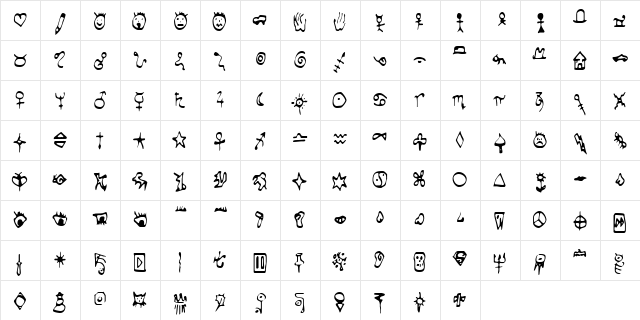
Scorpio Regular
Design Context for Scorpio Typeface
Scorpio is a composed and adaptable typeface that performs quietly and consistently across a wide range of design contexts.